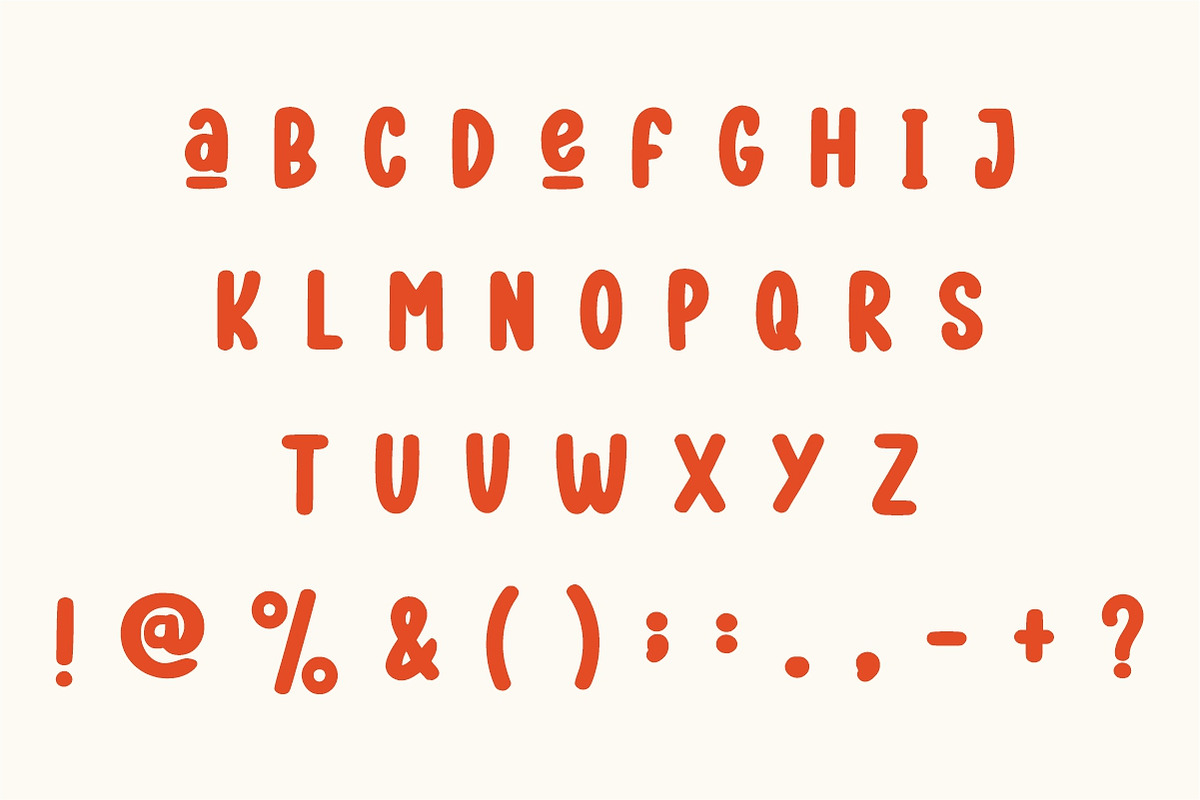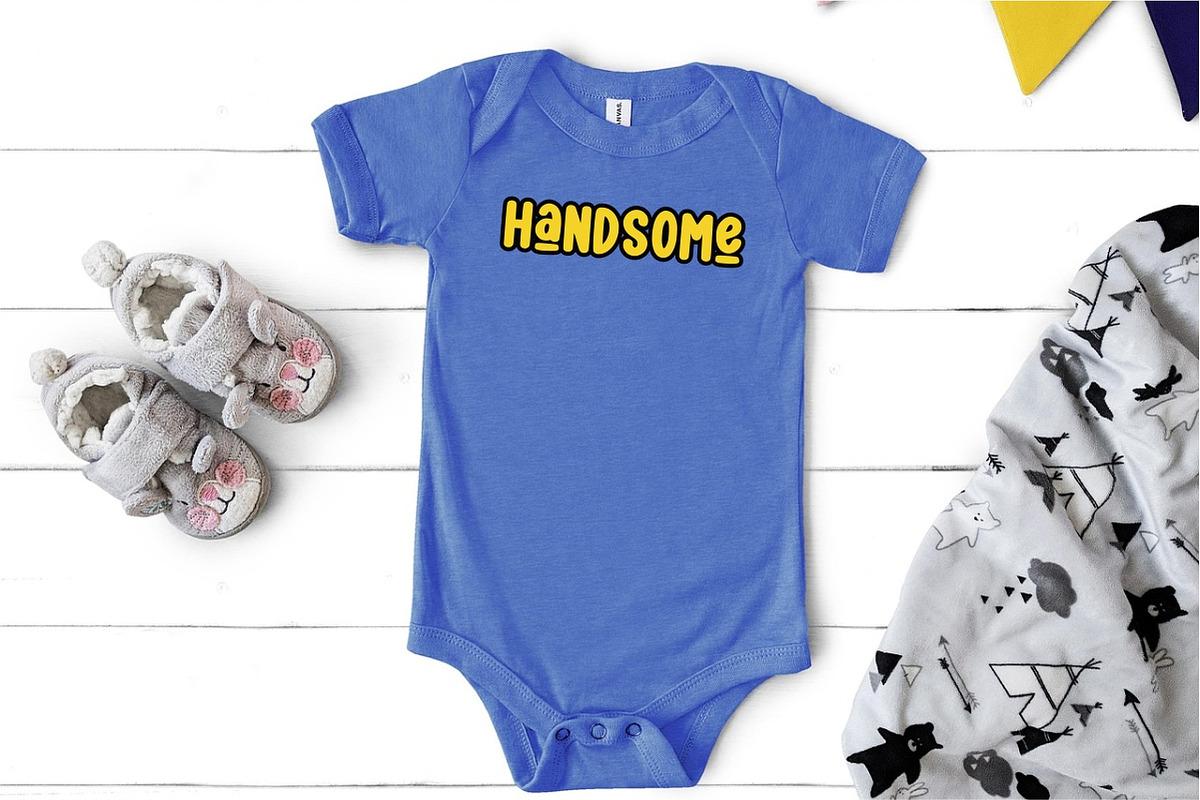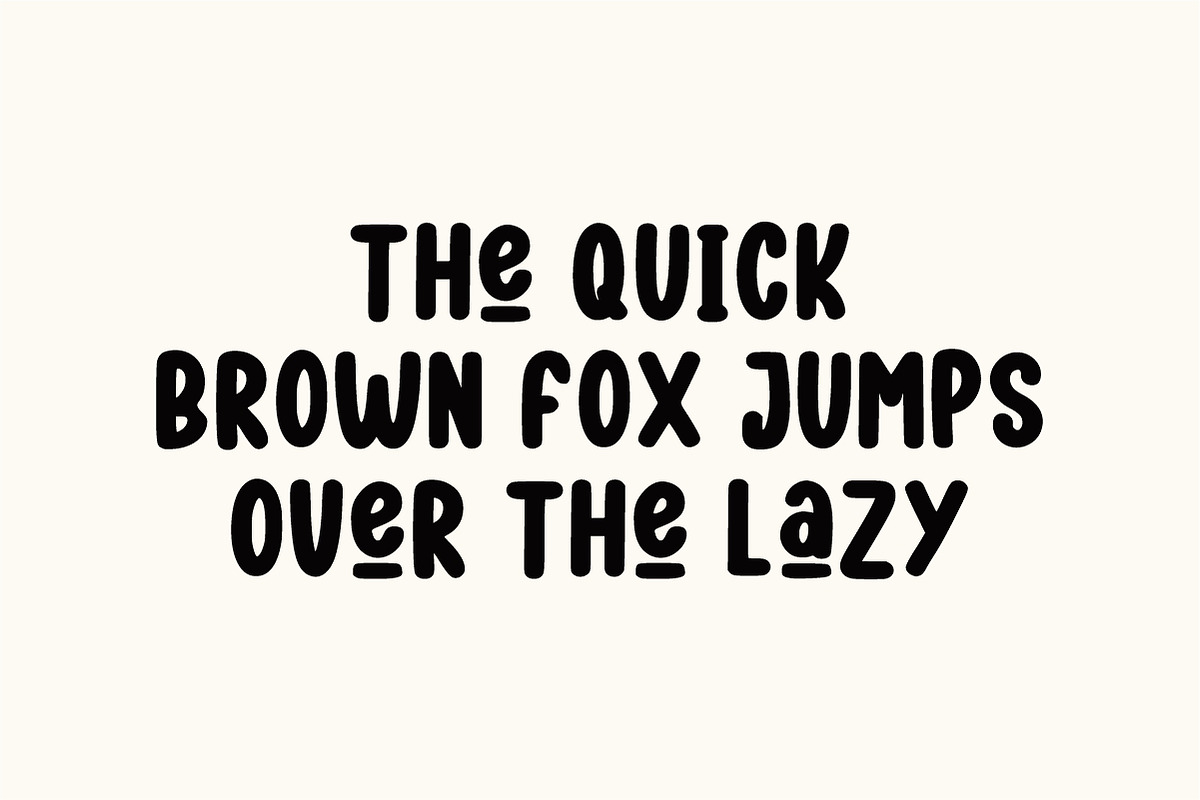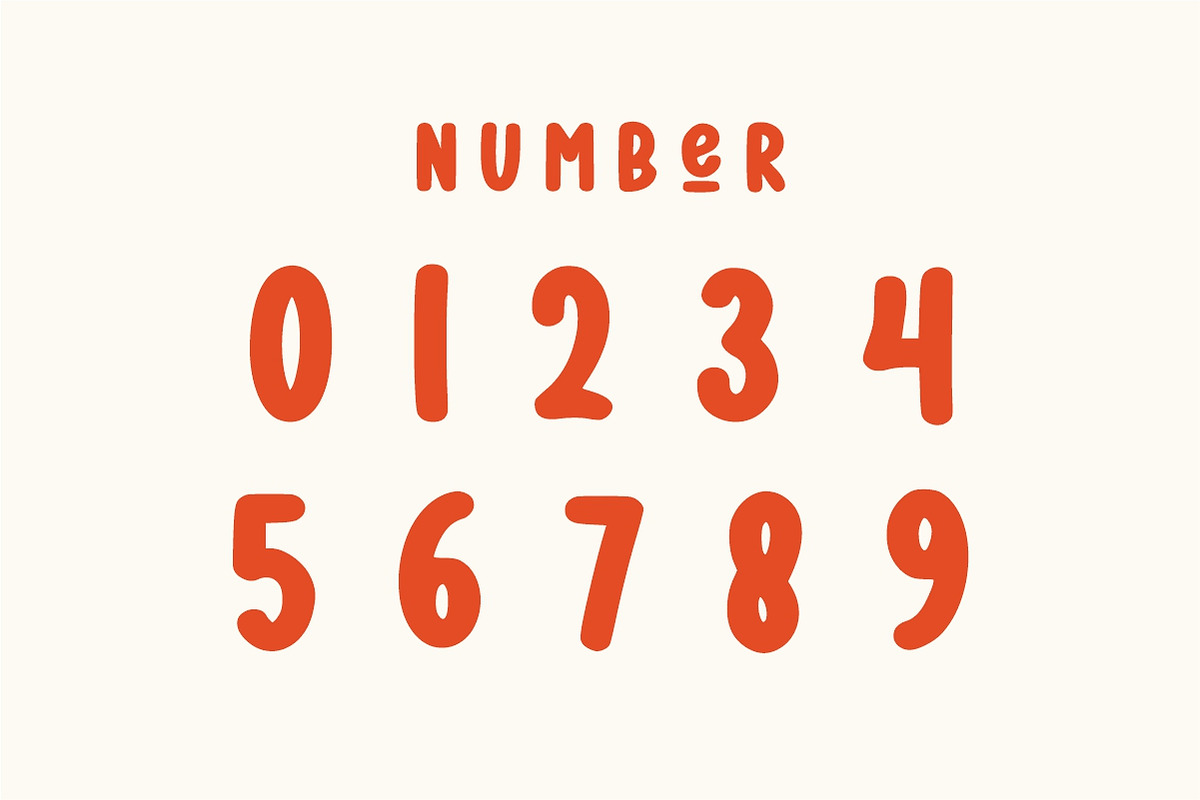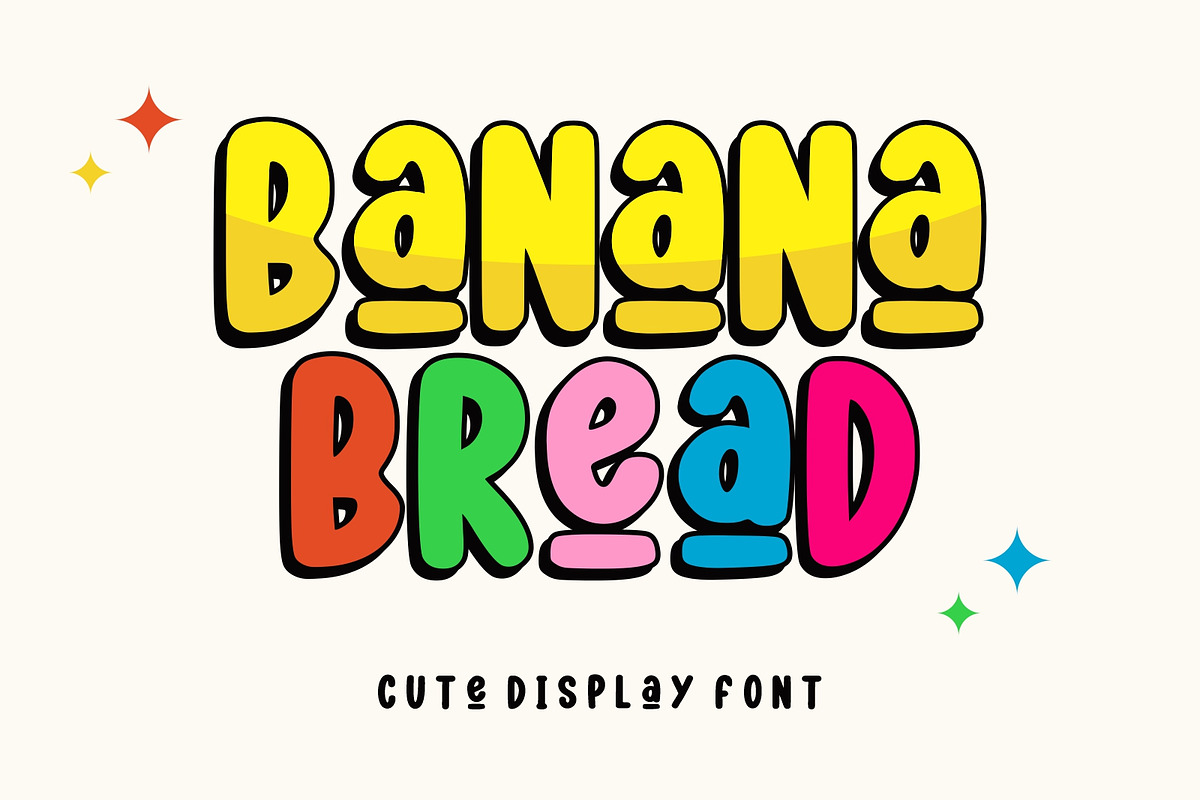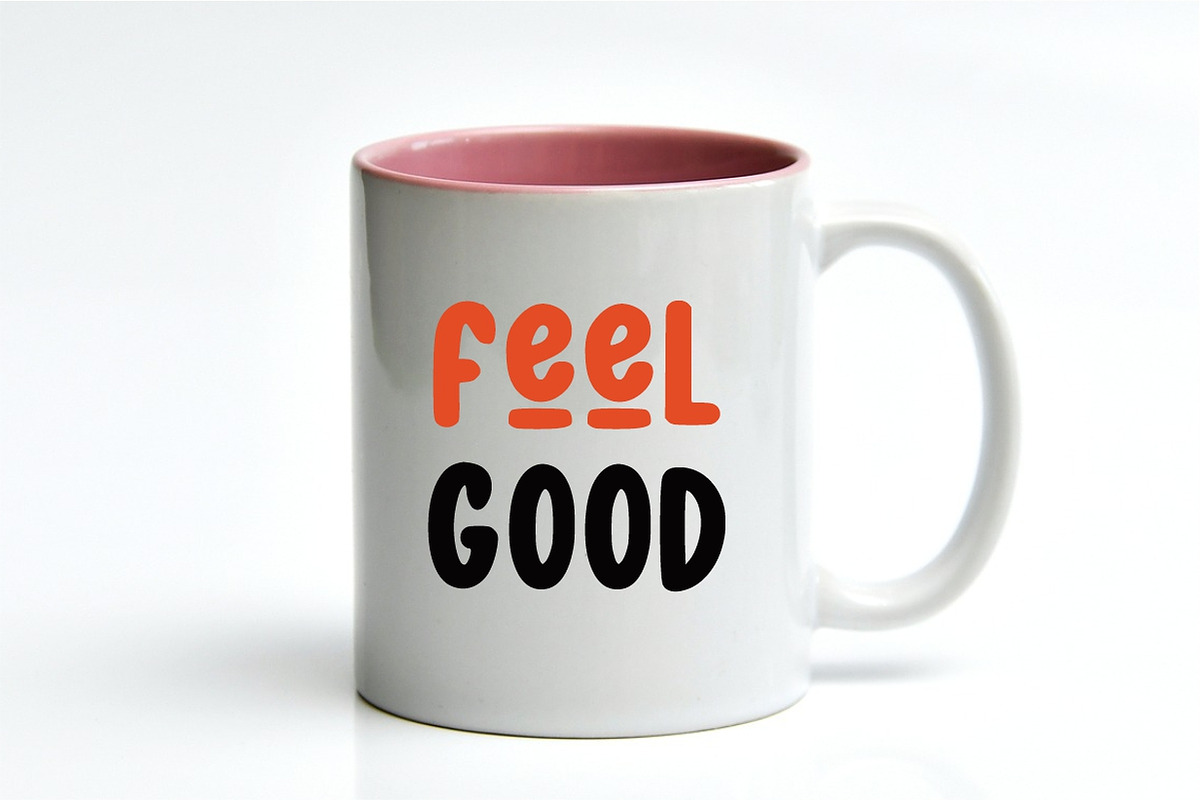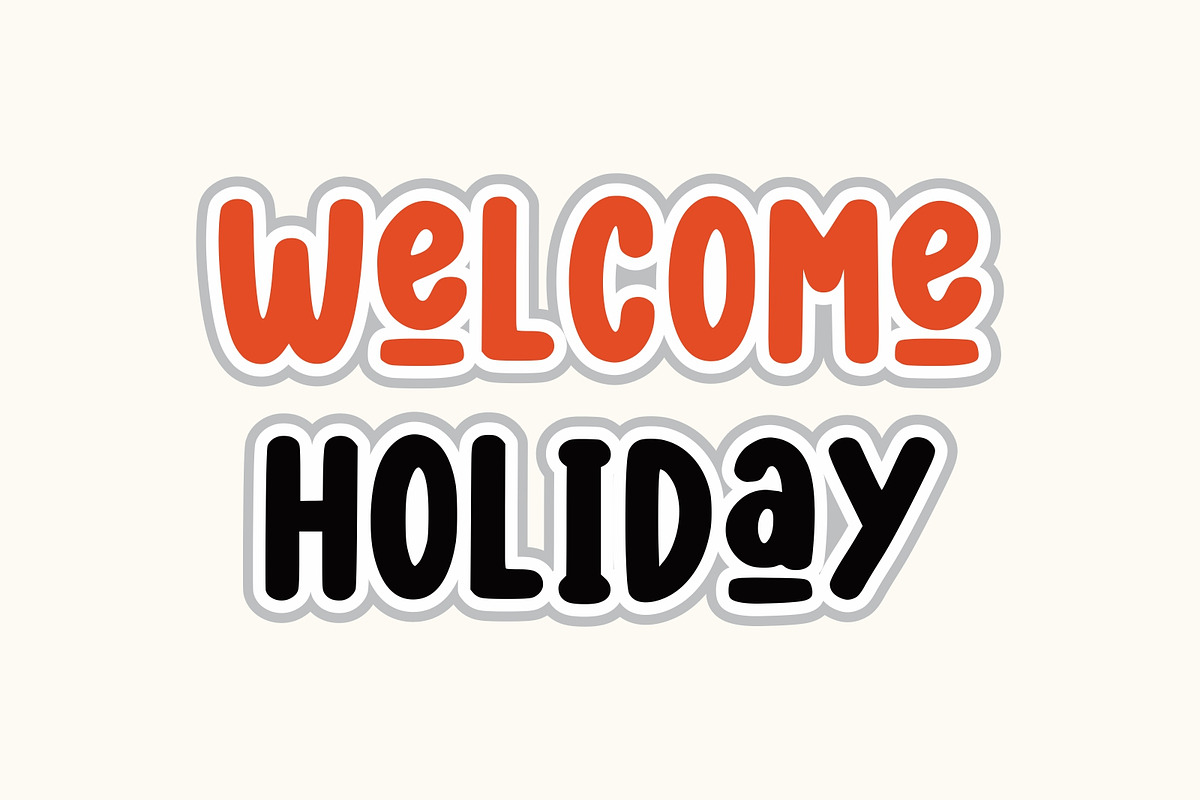
Banana Bread
Banana Bread is a Fun and Cute display font. Its friendly feel makes this font incredibly versatile, fitting a wide range of contexts. Add it to your creative ideas and notice how it makes them stand out!